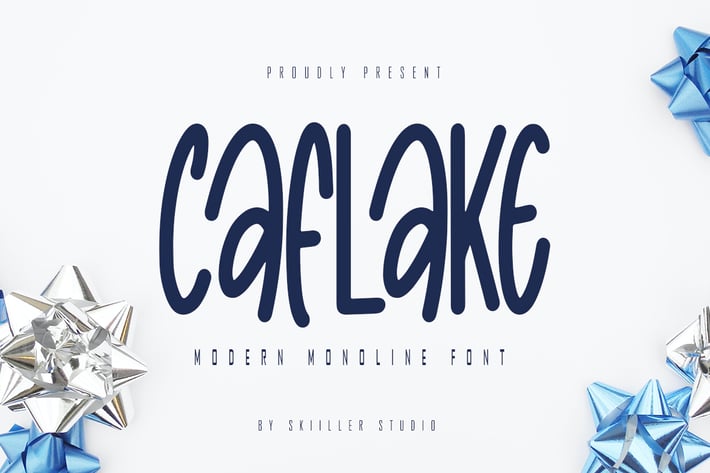
Caflake - Monoline Sans Serif Font
Caflake is a monoline sans serif font, crafted to give your headlines and logotype projects a stylish touch. This font reads as strong, confident, and dynamic and can add tons of urban character to your designs.
+ Basic Latin Language Support (AÀÁÂÃÄÅCÇDÐEÈÉÊËIÌÍÎÏÑOØÒÓÔÕÖUÙÜÚÛWYÝŸÆß )